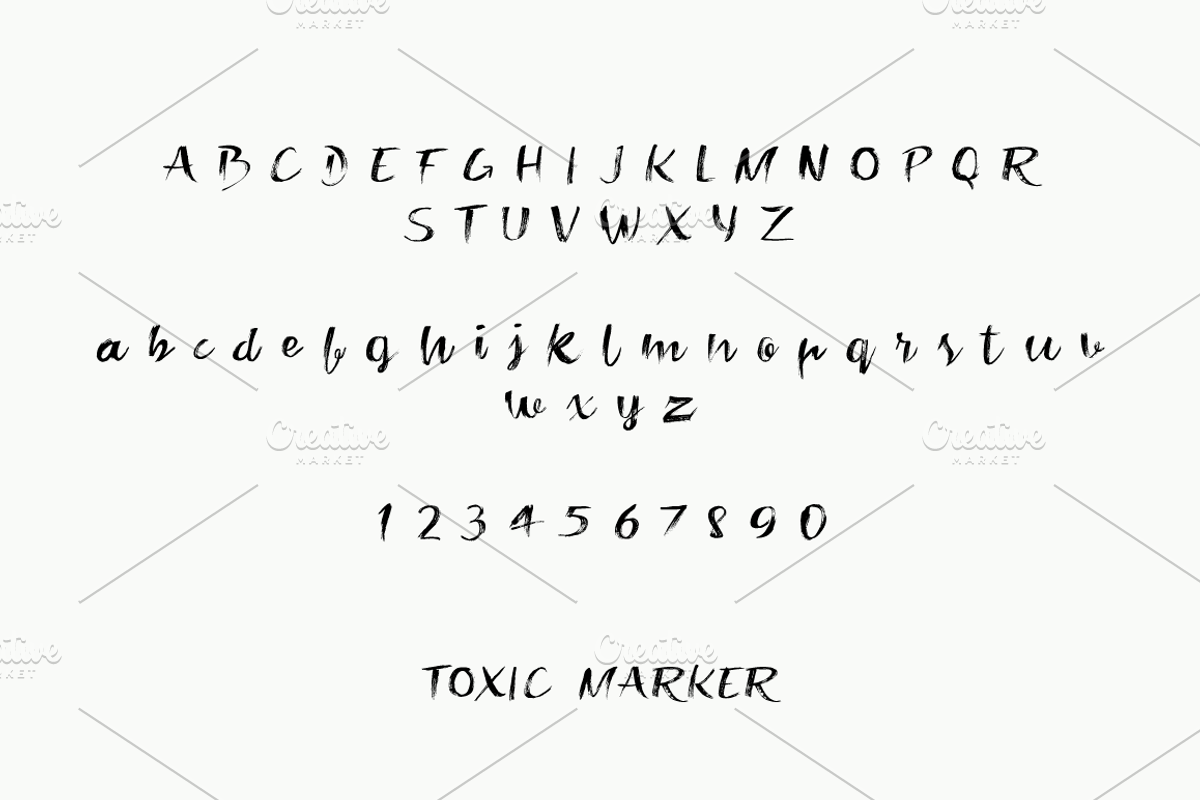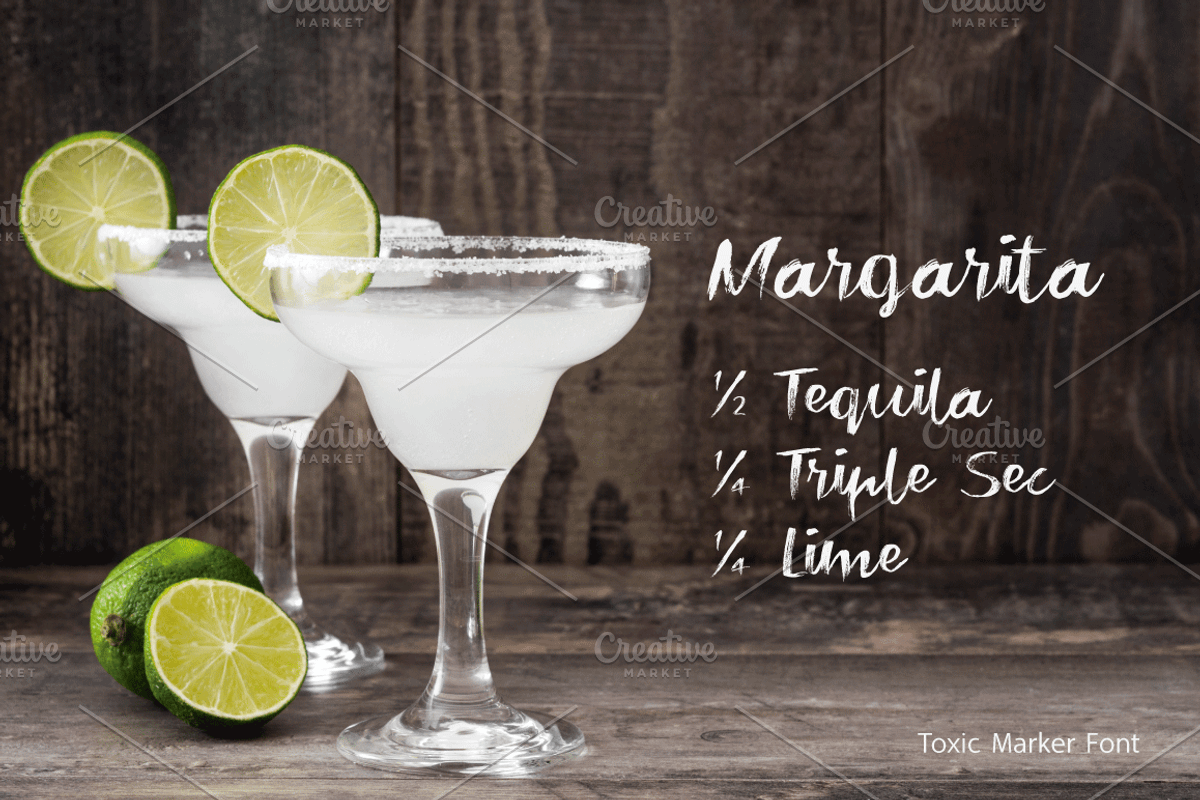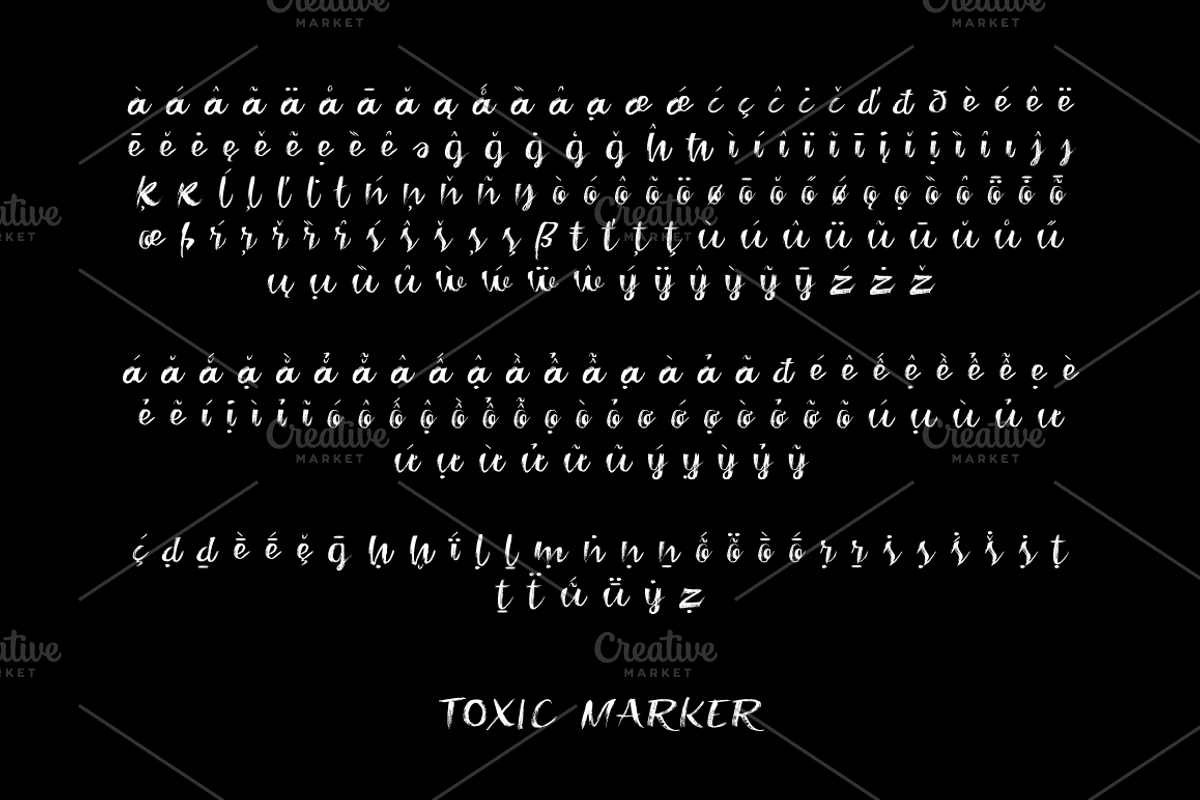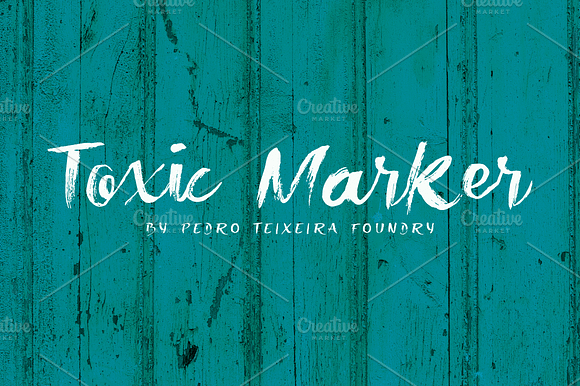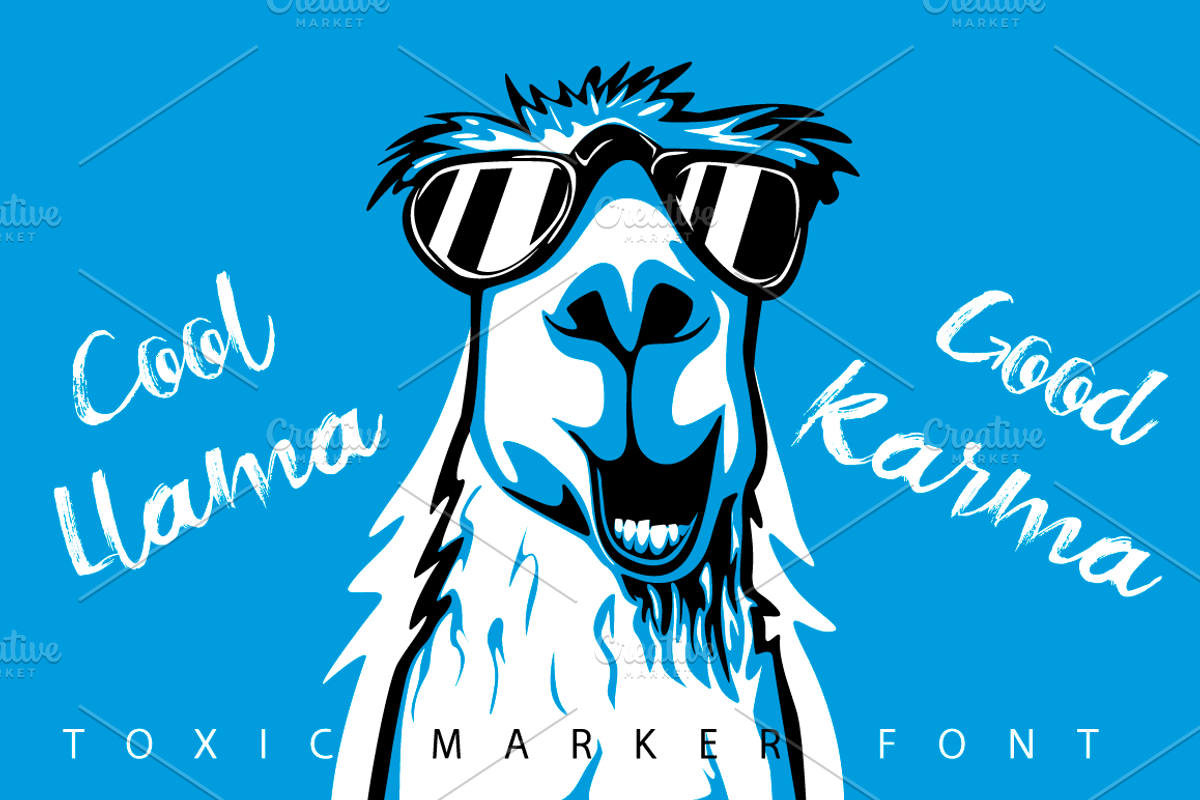
Toxic Marker Font
a font based on extreme texture marker
128 Languages supported: Central Europe, Baltic, Turkish, Romanian and Vietnamese
Toxic Marker Font by vectalex fits naturally into Branding, posters, packaging, typography.